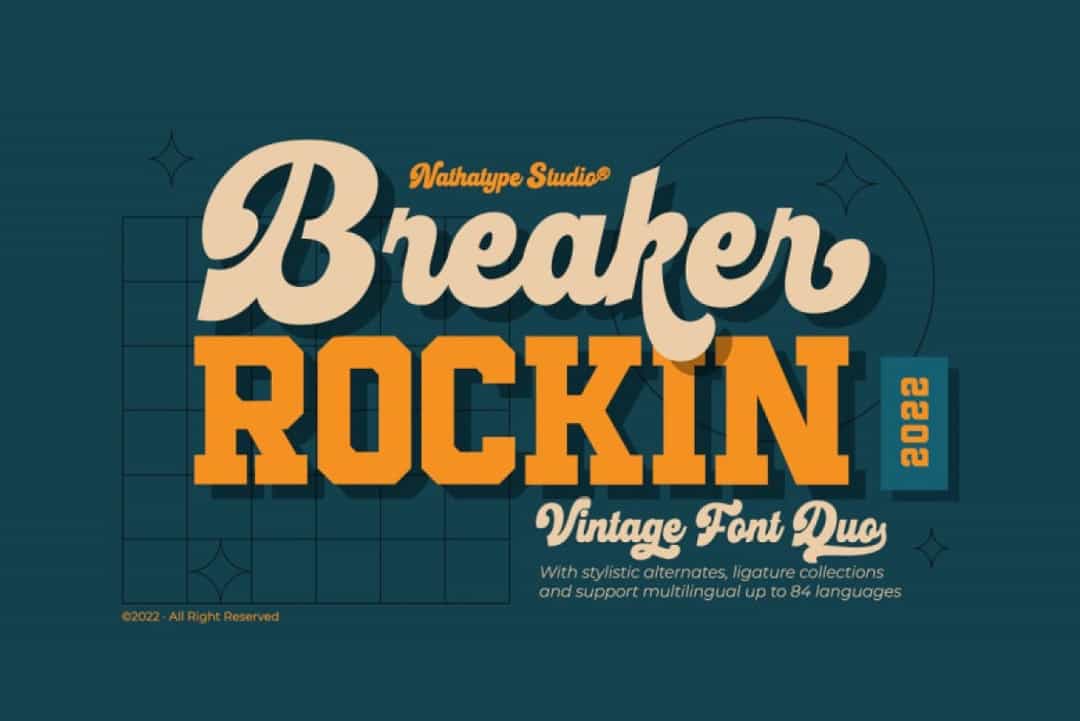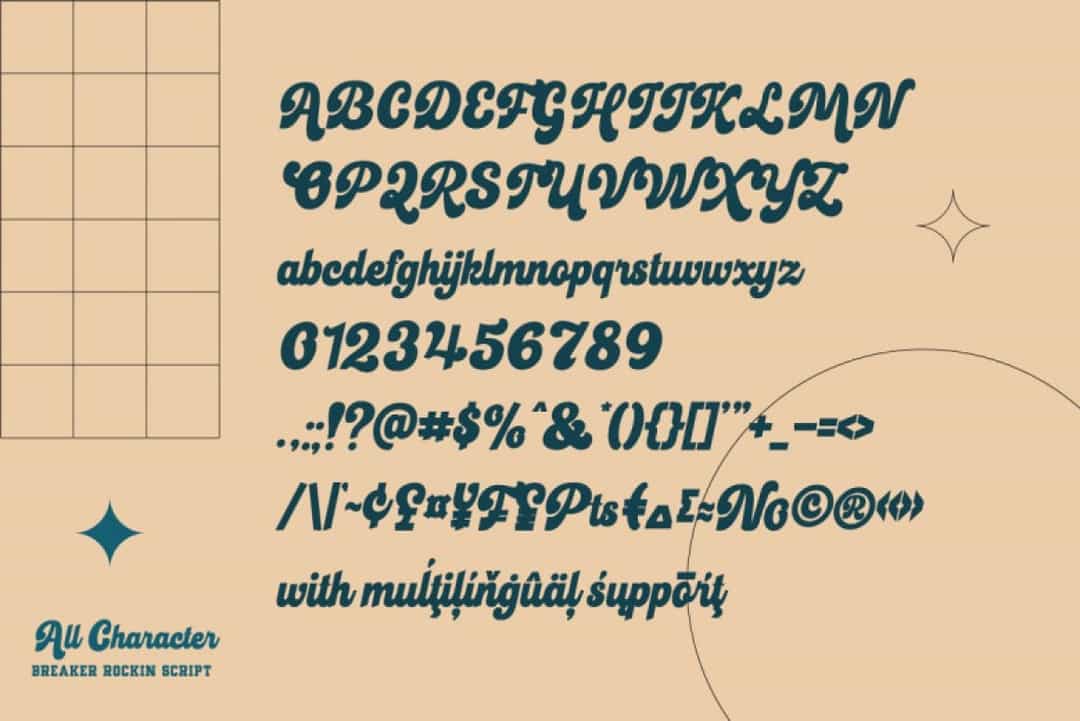
Not two is always more effective than one! When using Breaker Rockin you won’t experience issues related to having too few font options; its versatile nature means you’re free of font limitations. The display font uses uppercase characters which makes the font simple for reading purposes while its script variant offers sharp and curvy strokes for an eye-catching retro design aesthetic.